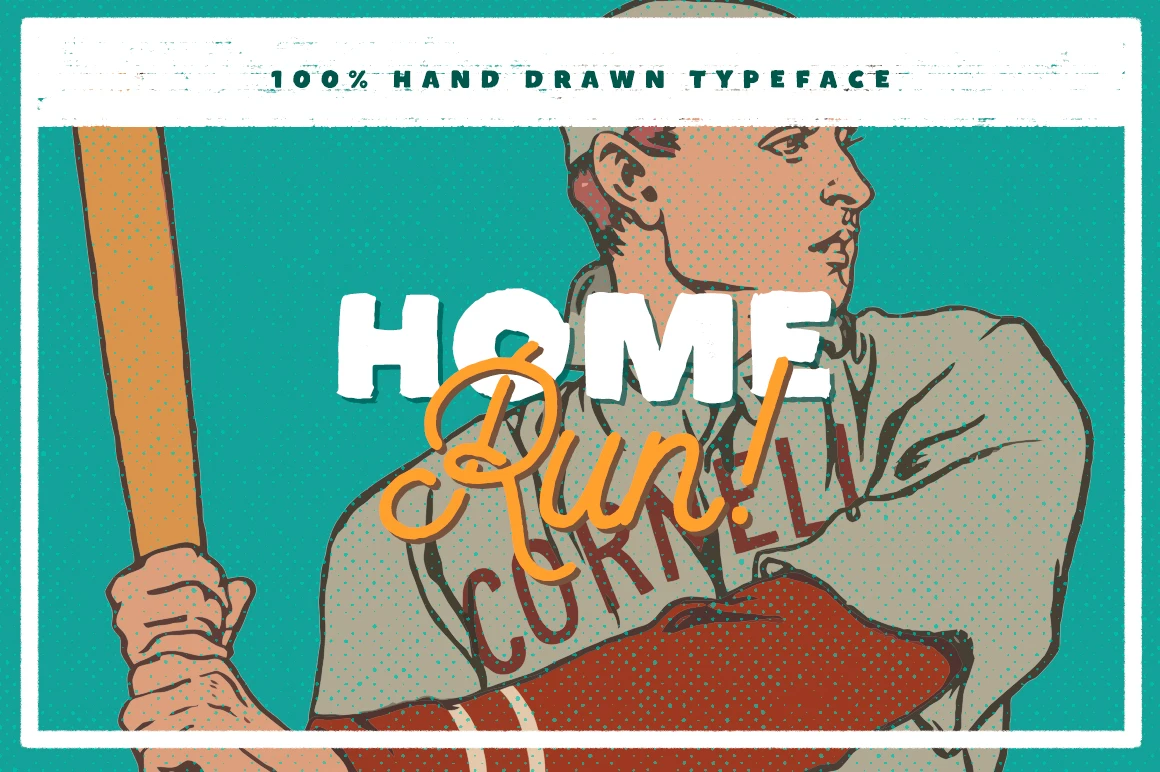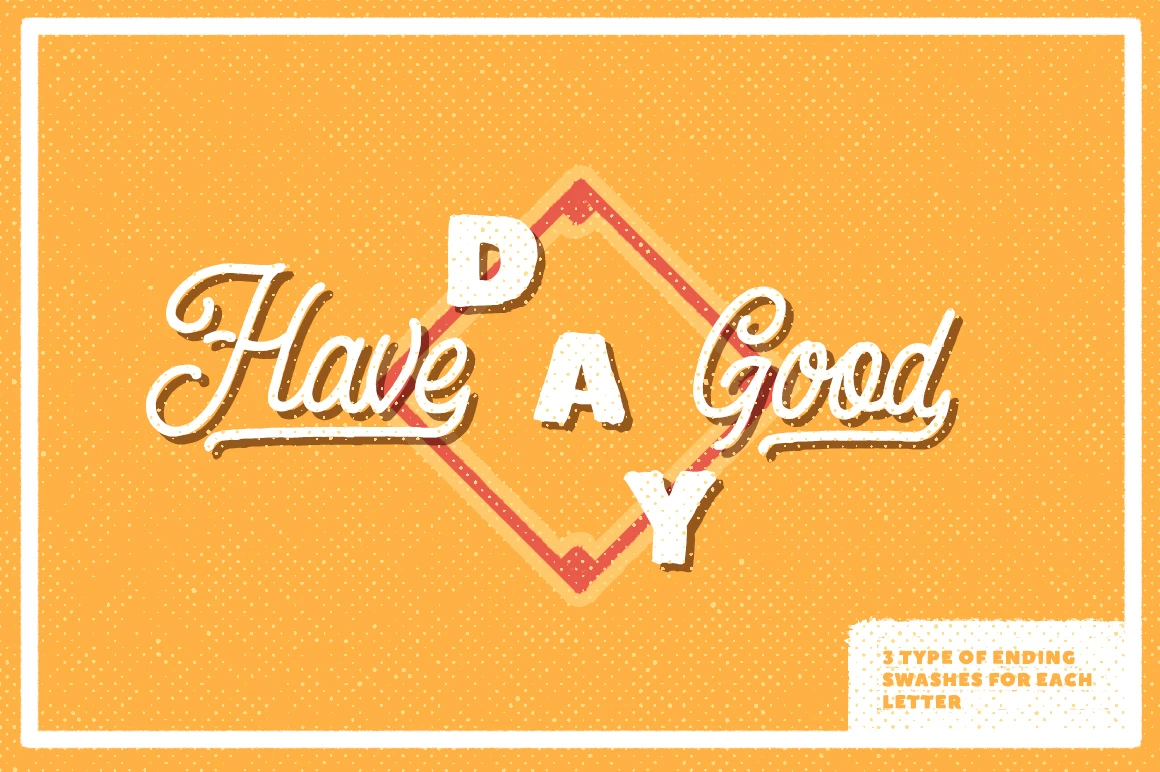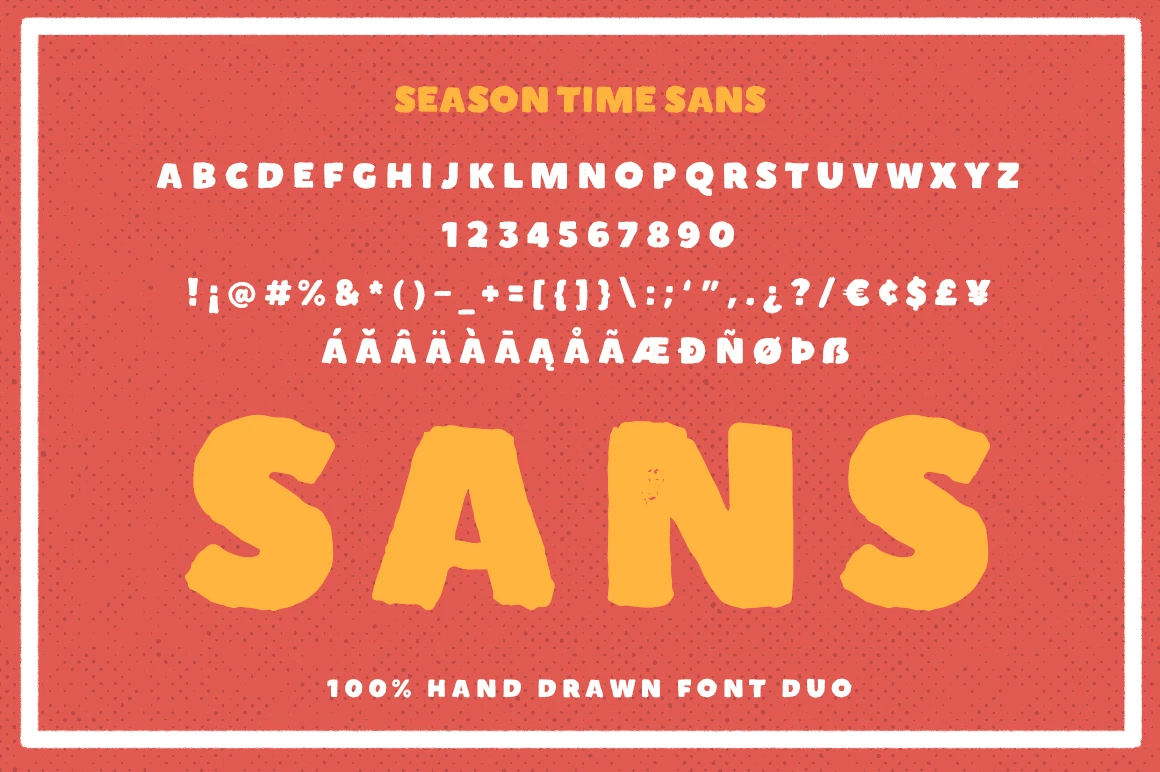
Season Times • 2 styles
This hand-drawn font duo combines a smooth monoline script with a bold rustic sans, offering a warm, vintage look. The script includes two sets of each character, 22 alternates, 6 ligatures, and 103 swash-style letters for added flair and customization. Paired with the strong, textured sans, this duo is ideal for branding, retro signage, product packaging, and stylish text overlays. A great choice for projects needing character, charm, and a handcrafted feel.
• Discretionary Ligatures
• Stylistic Alternates
• Stylistic Sets
• Swashes